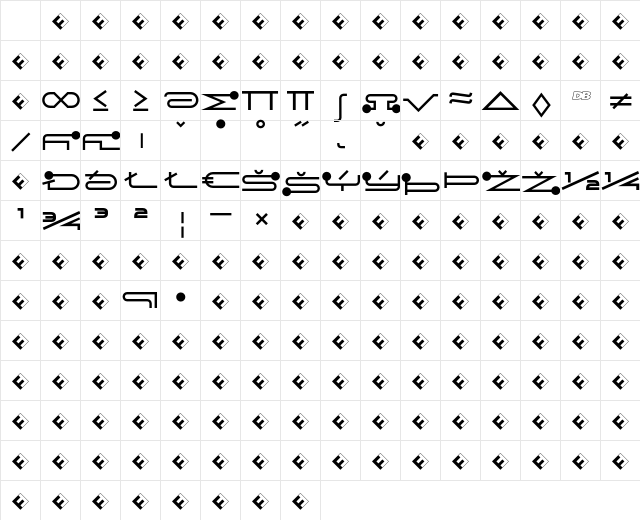
Complete Droids RegularExpert glyph index. Displaying only characters natively supported by Droids RegularExpert font.
Droids is a composed and adaptable typeface that performs quietly and consistently across a wide range of design contexts.